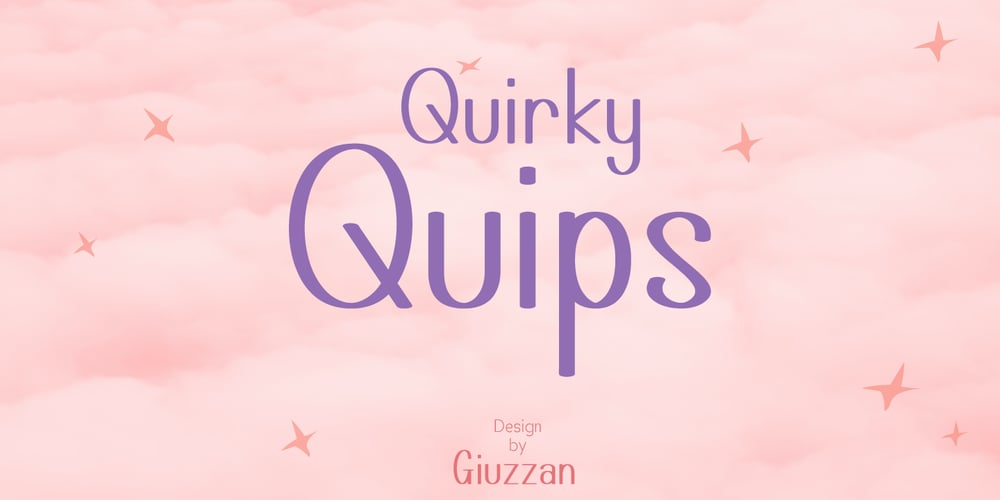
Quirky Quips
Quirky Quips font
Quirky Quips Font Family was designed by Muhamad Fauzan and published by Giuzzan. Quirky Quips contains 1 styles and family package options. “Quirky Quips” is a whimsical handwritten font, brimming with playful charm and delightful imperfections. Perfect for adding a touch of personality to any project, from greeting cards to social media graphics. Let your creativity shine with “Quirky Quips”.